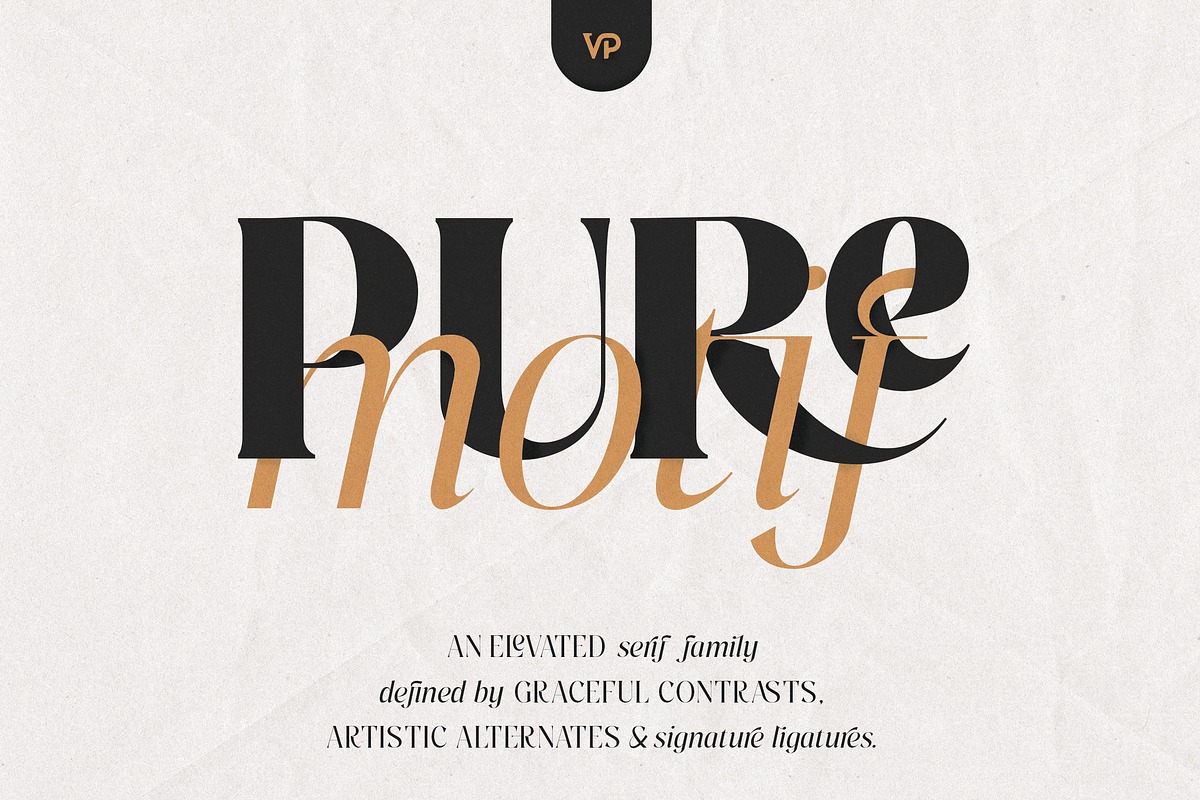
Pure Motif Font
Pure Motif Font is a professionally designed typeface that delivers clarity, structure, and consistent performance across various design applications. Pure Motif is a refined serif family that blends classic craftsmanship with contemporary artistry – designed for creators who crave sophistication, emotional impact, and timeless beauty in every letterform.
Born from graceful contrasts, fluid curves, and sculpted terminals, Pure Motif elevates even the simplest word into a visual statement. Its voice is elegant yet daring, soft yet authoritative – making it the perfect typographic companion for premium brands, editorial storytelling, high-end packaging, and expressive lifestyle design.
From delicate thin cuts to confident bold weights, Pure Motif’s versatility allows it to shift effortlessly between romantic, modern, luxurious, artisanal, editorial, and fashion-forward aesthetics.